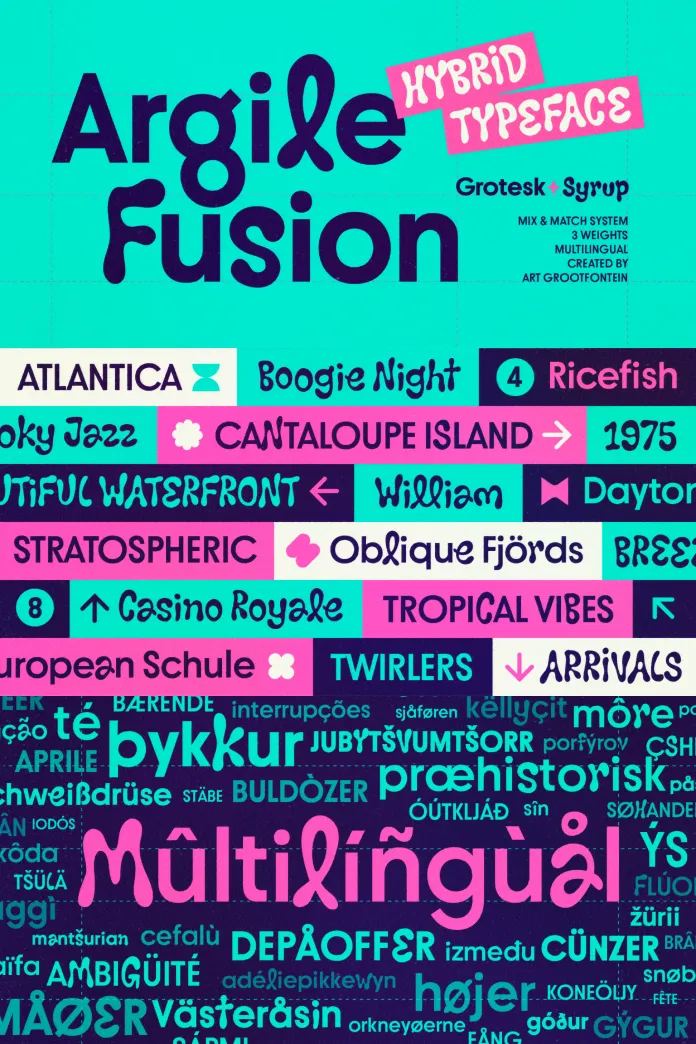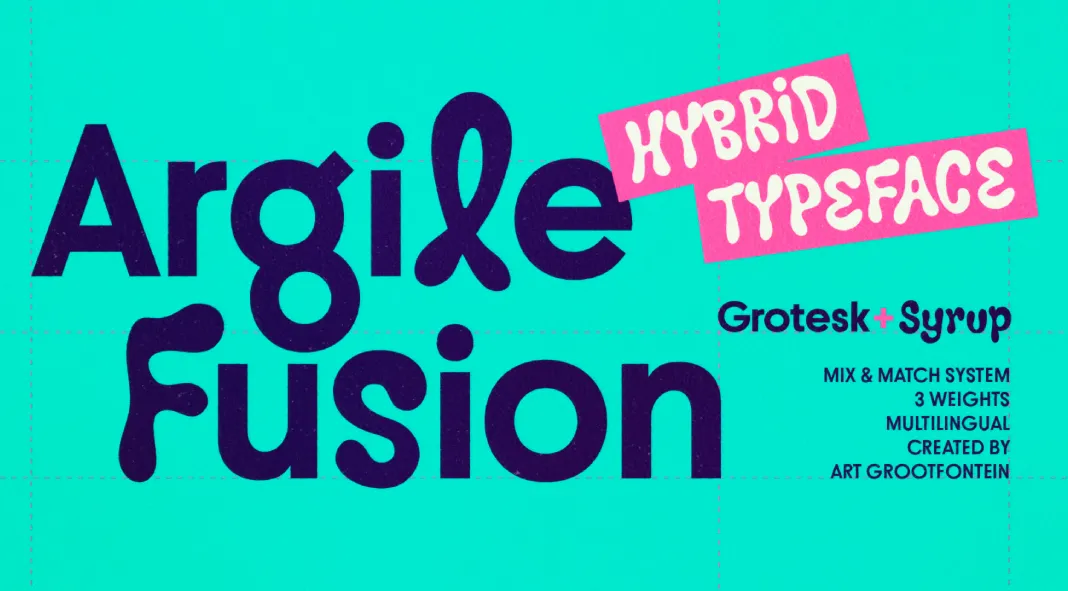
We are unveiling a groundbreaking approach to typographic design with the Argile Fusion font family.
Created by Art Grootfontein, Argile Fusion redefines design possibilities with a revolutionary blend of two distinct fonts: sleek, geometric san and an expressive, hand-drawn script. These two fonts have been designed to coexist in perfect harmony, seamlessly combining to create stunning, contemporary designs. Whether your goal is modern minimalism or vibrant creativity, Argile Fusion infuses your projects with a dynamic balance of precision and personality.
Argile Fusion Font Family by Art Grootfontein
Discover the Future of Typography with Argile Fusion, Where Elegance Meets Artistic Flair
Argile Grotesk
Argile Grotesk is a robust and elegant geometric sans-serif typeface, inspired by the German geometric typefaces of the 1920s, reimagined through a modern lens. The forms of this contemporary display font feature optimized proportions and improved balance, with a large x-height and reduced ascenders and descenders. Its clean lines and refined structure make it an ideal choice for those seeking a timeless yet contemporary aesthetic.
Argile Syrup
Argile Syrup, on the other hand, is a fluid and expressive script font. Its unique flowing design and numerous dynamic letter combinations give it the hand-drawn look of a skilled lettering artist. Argile Syrup brings an eccentric personality to your design projects, offering a creative way to capture attention and convey a sense of artistic flair.
Argile Fusion
Two fonts in one! Argile Fusion is a font duo that combines the strength of a geometric sans-serif with the expressive energy of a flowing hand-drawn script. This hybrid typeface includes all the characters of Argile Grotesk and Argile Syrup, designed to work seamlessly together. With the OpenType alternate feature of this unique hybrid typeface, you can mix and match letters at will! Check out this simple PDF guide to learn more about this unique feature.
The combination font provides a stylish and sophisticated look that imparts a strong sense of identity and personality to your designs. Each font is available in three weights: Regular, Medium, and Bold.
The Argile Fusion font family is the perfect choice for editorial design, including magazines and catalogs. It also works well for designing titles and short texts on book covers and large-format publications or as part of a corporate identity, including logos, packaging, and labels.
Explore the boundless potential of Argile Fusion by Art Grootfontein and elevate your typographic design to new heights. This innovative font family is a testament to the fusion of precision and artistic expression, offering designers a powerful tool to create impactful and memorable visuals.